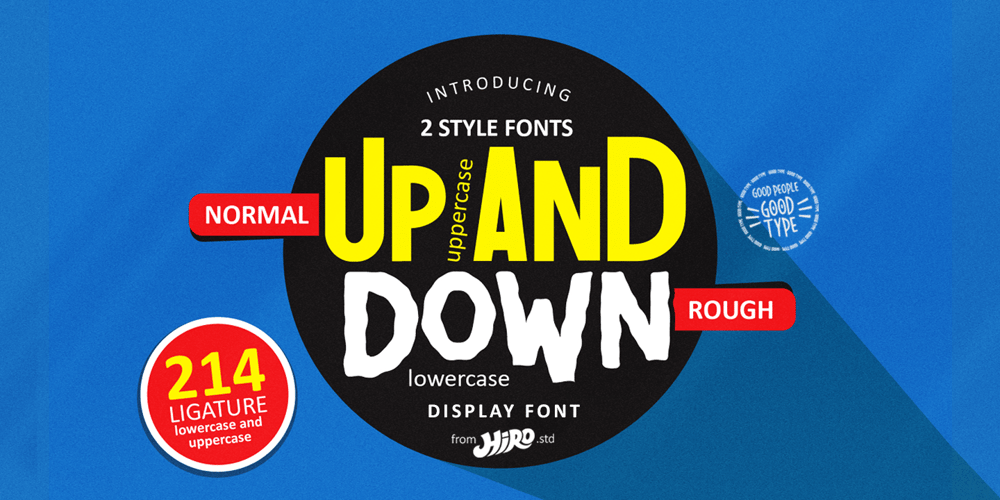
Up and Down Font Family was designed by Chairul Ashar and published by HIRO.std. Up and Down contains 2 styles and family package options. Up and Down is a Display Font.This font describes about fun, dynamic, rough, headline, pleasure, humanist, easy going, and easy to use.FEATURES- Uppercase and Lowercase letters- Support Ligatures- Numbering and Punctuations- PUA Encoded Characters- Multilingual Support- Works on PC or MacUSE Up and Down works great in any branding materials, logotype, poster, print etc.